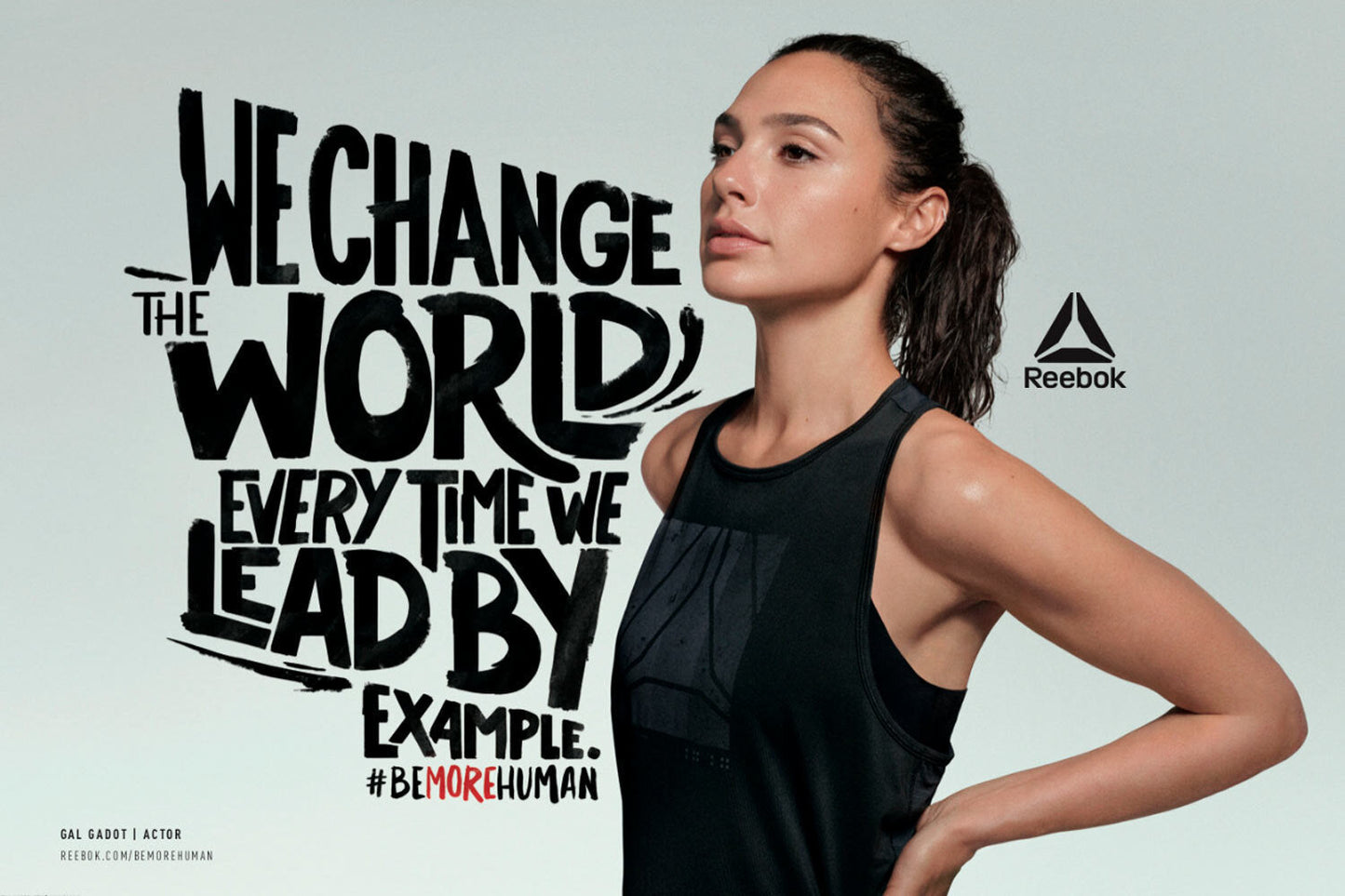
The Reebok font I created for the #BeMoreHuman campaign was never meant to sit quietly in a brand-guideline PDF. It was designed to be used, changed and pushed around by other designers. A hand-drawn typeface with enough alternative letters to create individual pieces of lettering without losing the campaign’s recognisable voice.
A brand font usually brings consistency.
This one also needed to misbehave.
The campaign
Reebok’s #BeMoreHuman campaign celebrated women creating positive change in their lives and the world around them.
Created with Venables Bell + Partners, the campaign featured artists, athletes and activists including Ariana Grande, Gal Gadot, Gigi Hadid, Danai Gurira, Nathalie Emmanuel and Katrín Davíðsdóttir.
Each woman brought a different story, personality and point of view.
The typography needed to do the same.
Not another corporate font
The brief was to create a hand-drawn typeface that other designers could adapt into distinctive campaign lettering.
It needed personality without becoming chaotic. Consistency without looking mechanically repeated. Something flexible enough to sit across photography, layouts and individual messages while still feeling like part of the same campaign.
A perfectly polished corporate sans serif was never going to do it.
There are already enough of those.
One alphabet wasn’t enough
Hand lettering feels natural because people do not draw the same letter in exactly the same way every time.
A conventional font does.
Type the word “human” twice and the letters repeat perfectly. That is useful for a railway timetable. Less useful when the work needs energy and individuality.
To avoid that mechanical repetition, I designed a wide range of alternative letterforms. Designers could swap characters, change the rhythm and build lettering that felt specific to each image or message.
The letters belonged together.
They just weren’t identical twins.
Designed for other designers
A custom typeface is a tool, not a finished piece of artwork.
That distinction matters.
I wasn’t designing every campaign headline myself. I was creating a working system that the team at Venables Bell + Partners could use to produce photography, layouts, lettering and further adaptations.
The font needed enough character to establish the visual language, but enough flexibility to let other designers make it their own.
Too rigid and every execution would look the same.
Too loose and the campaign would lose its identity.
The interesting work usually sits between the two.
Why use a font instead of commissioning separate lettering?
Custom lettering works brilliantly for a single headline, logo or hero image. But a large campaign needs more than one beautiful arrangement of words.
It needs a repeatable system.
Turning the hand-drawn style into a working font meant the campaign team could:
- Create new headlines without redrawing every letter
- Keep the typography recognisable across different layouts
- Choose alternative characters to avoid obvious repetition
- Adapt the lettering for different images and formats
- Work faster without relying on one lettering artist for every execution
The typeface provided the ingredients.
The designers still did the cooking.
A font can be consistent without looking repetitive
Brand consistency is often misunderstood as making everything look exactly the same.
That isn’t consistency. That is photocopying.
A useful brand system establishes recognisable rules while leaving room for variation. Colour, proportion, texture and letterform can all change slightly while the overall voice remains familiar.
The Reebok typeface used alternative characters to create that variation inside the font itself.
It could move without wandering off.
From typeface to campaign lettering
Once completed, the font became the starting point for campaign typography rather than the final result.
Designers could type a message, explore different letter combinations and then adapt the result around the photography.
Some compositions could feel compact and forceful. Others could be more open, personal or spontaneous. The underlying typeface connected them without forcing every execution into the same layout.
That is where a custom font earns its keep.
It doesn’t just decorate one advert. It gives an entire campaign a usable voice.
What makes a good campaign font?
A campaign font has a slightly different job from a permanent corporate typeface.
It may need to be louder, more expressive and closely connected to one creative idea. But it still has to survive real production work.
That means considering:
- How the font behaves across short and long headlines
- Whether important letter combinations work together
- How much variation designers genuinely need
- Whether alternative characters are easy to find and use
Can a custom font be used by an entire design team?
Yes. That is one of its main advantages. Subject to the agreed licence, a custom font gives approved designers a consistent, reusable tool rather than requiring every headline to be drawn separately.